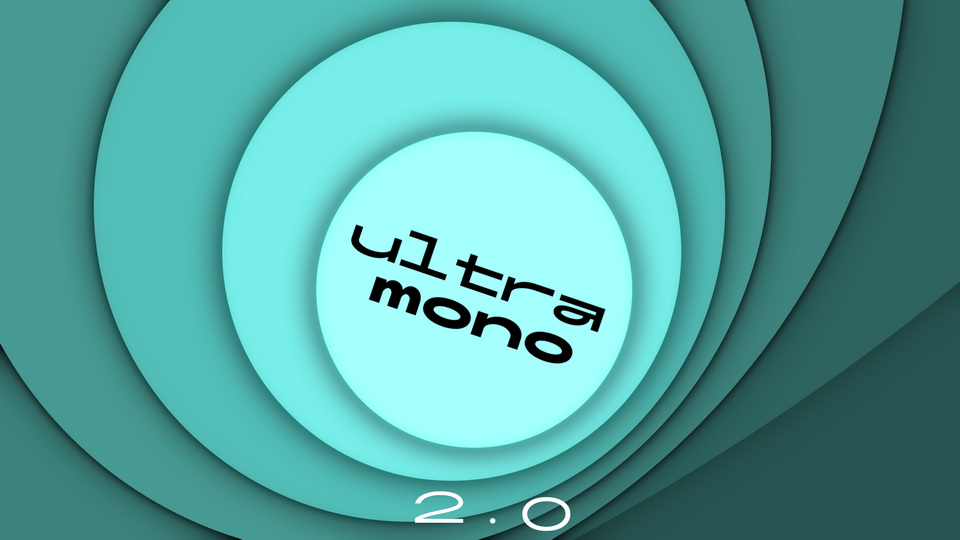
Download Ultramono font, a wide, geometric, and stylishly beautiful monospaced typeface. Each letter of Ultramono is carefully designed to grab the viewers’ attention and make the design stands out.